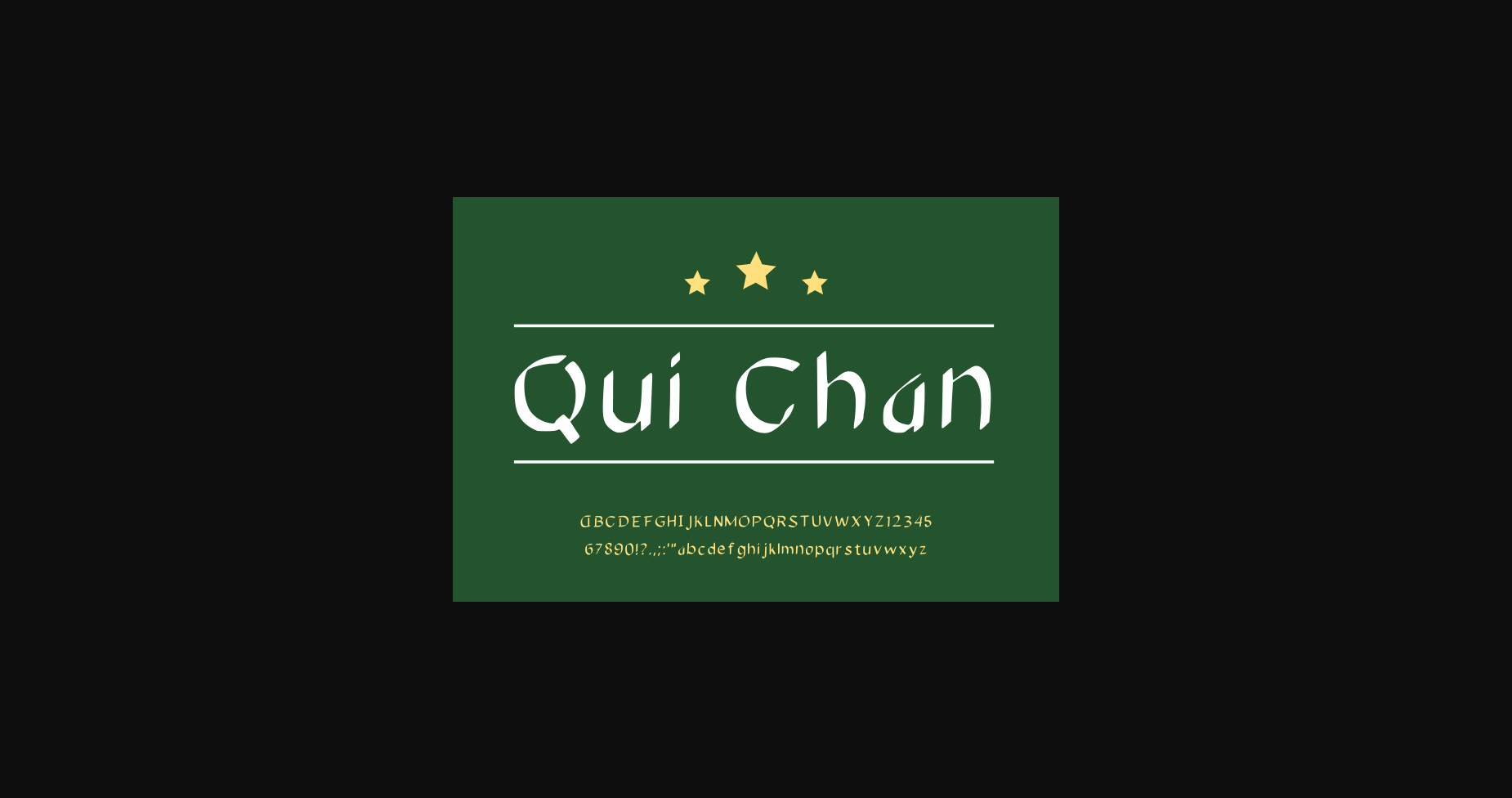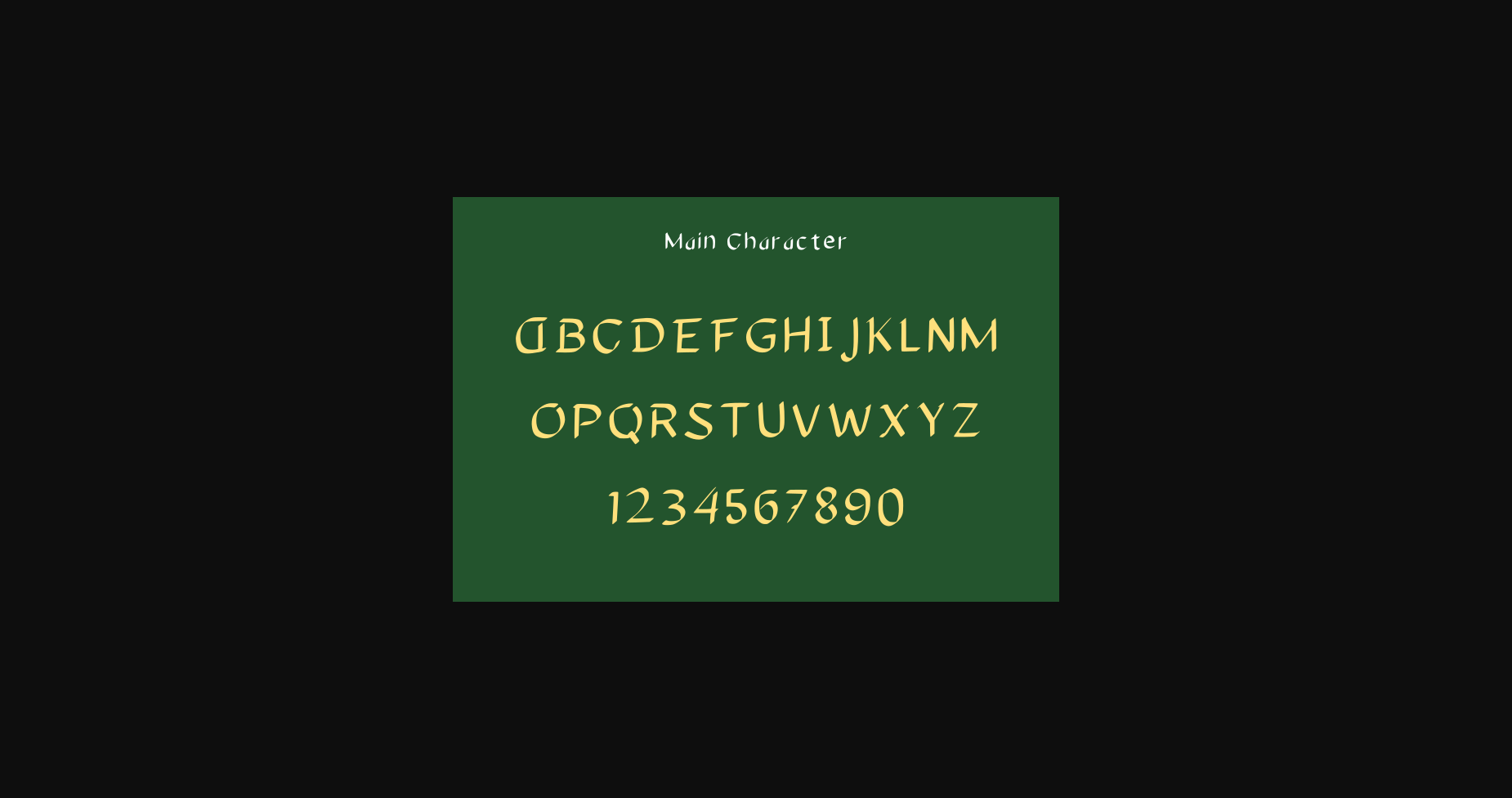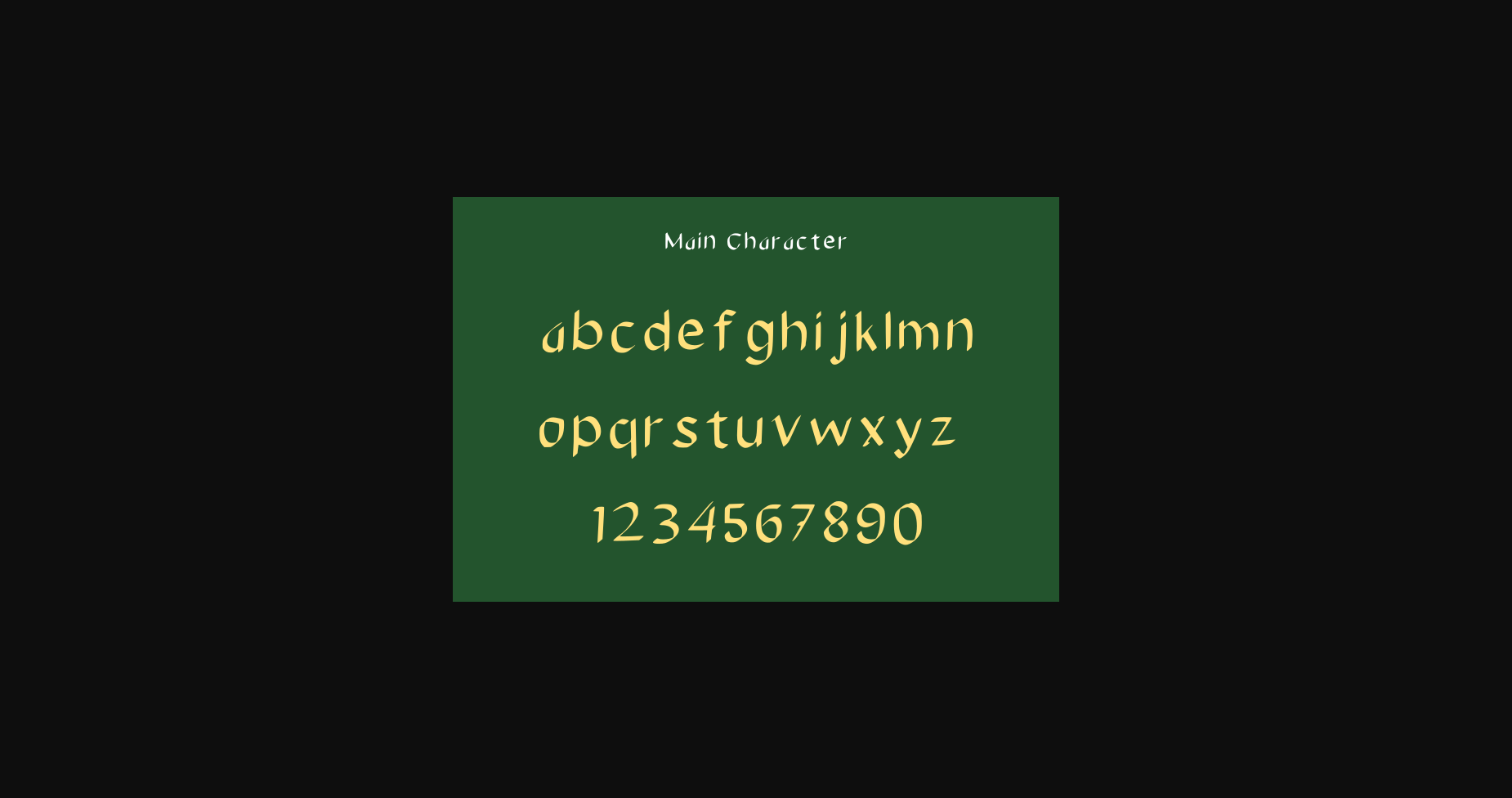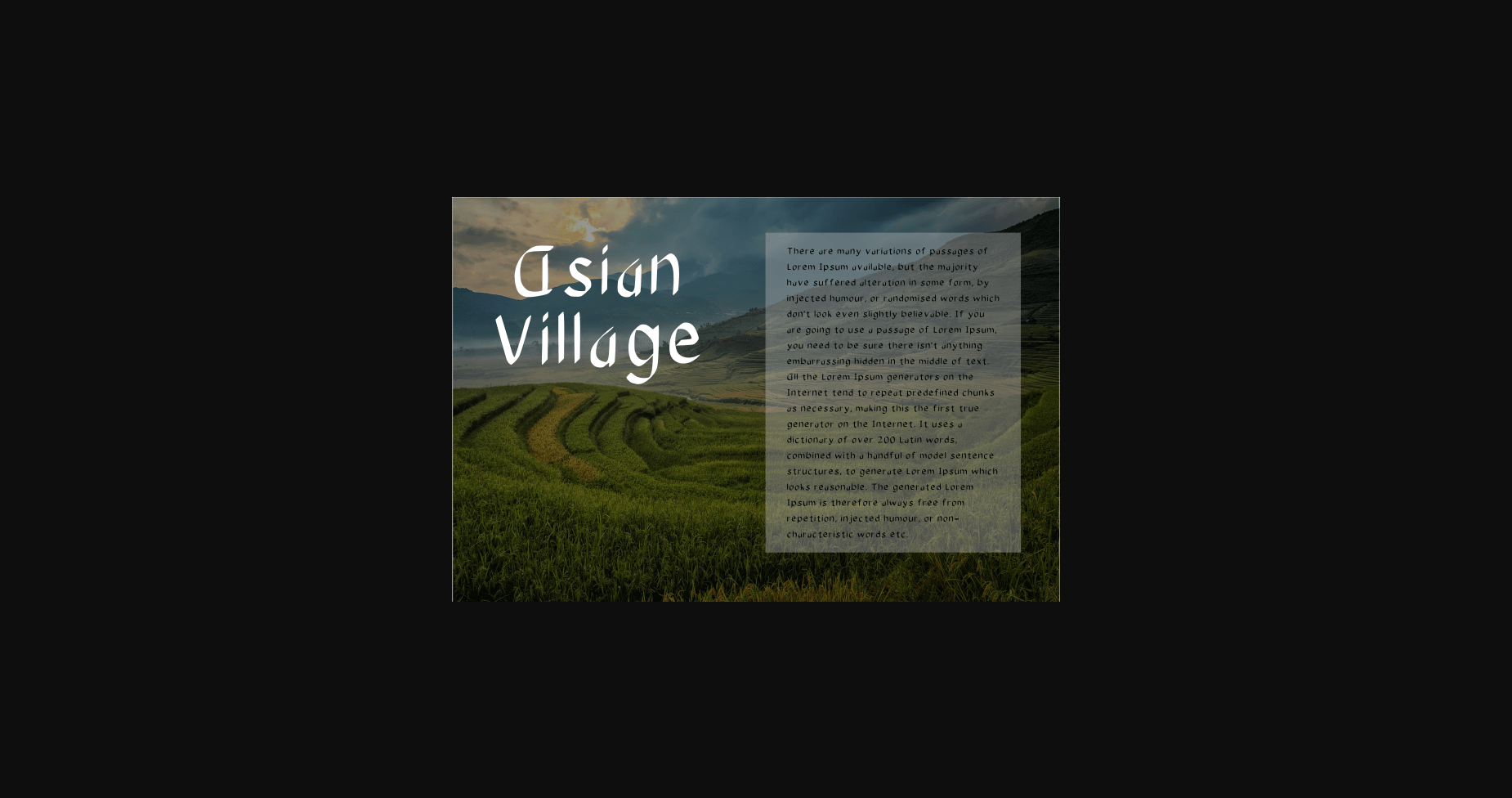
About Quinchan Font
QuinChan is a sans serif modern classic and serif typeface that has a unique style & modern look.
This typeface is perfect for elegant & luxurious logos, book or movie title designs, fashion brands, magazines, clothing, fonts, quotes and more.